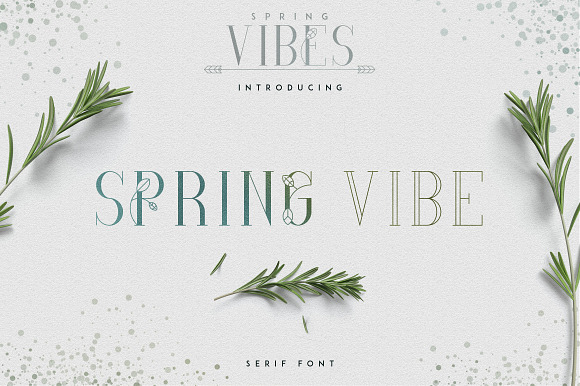
[Spring Vibes] SpringVibe Serif Font
Introducing 6th product from Spring Vibes collection called SpringVibe Serif Font
SpringVibe is fine crafted modern serif font with 26 alternatives, multilingual support and photoshop styles. It's a very versatile font that works great in large and small sizes.
SpringVibe is perfect for branding projects, home-ware designs, product packaging, wedding invitations, magazine headers - or simply as a stylish text overlay to any background image.
26 Alternative Glyphs